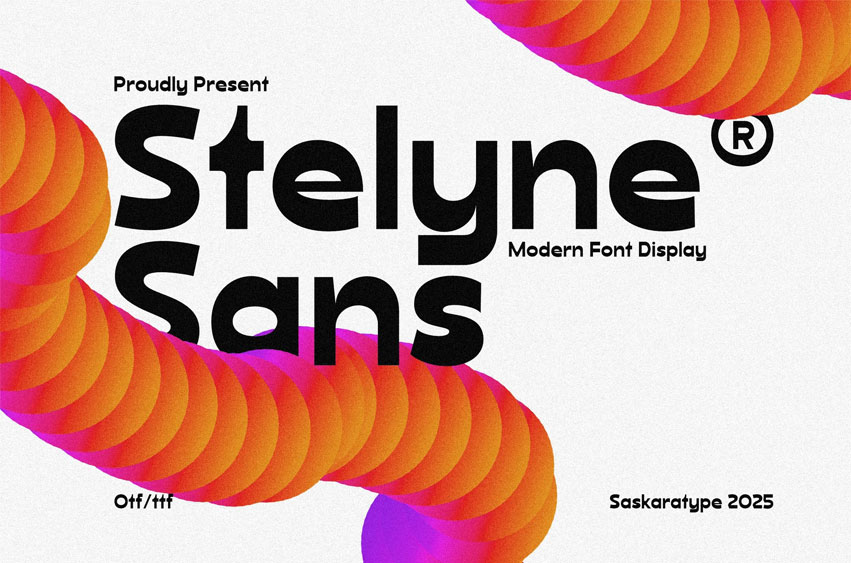
Stelyne Sans Font is a clean, modern sans-serif typeface crafted for clarity, versatility, and strong visual presence. Designed with balanced proportions and smooth curves, it offers excellent legibility across all media — from digital interfaces to printed layouts.
Its minimalist construction and subtle geometric influence make it a perfect choice for branding, editorial design, UI/UX, advertising, packaging, and more. Whether used in bold headlines or refined body text, Stelyne Sans maintains a confident yet approachable tone.
- Contemporary sans-serif with a neutral tone
- Ideal for modern branding, web design, signage, and publications
Recommended Uses: Brand identities, user interfaces, app design, editorial layouts, minimalist posters, clean packaging, and typographic systems that demand both style and function.